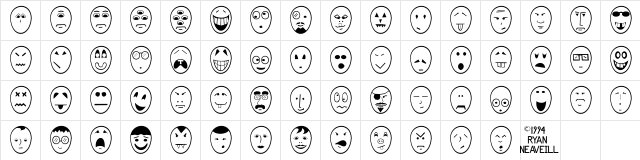
Funny Face Regular
Design Context for Funny Face Typeface
Funny Face has an approachable, lighthearted character — its loose, expressive forms are well-suited to children's content, casual branding, and fun-first design.
Font Pairing: Pairs well with a rounded or humanist sans for body copy, maintaining the friendly tone without relying on Funny Face to carry extended reading.
Pro Tip: Avoid using Funny Face for long passages of text — it works best for headlines, labels, and short calls to action.